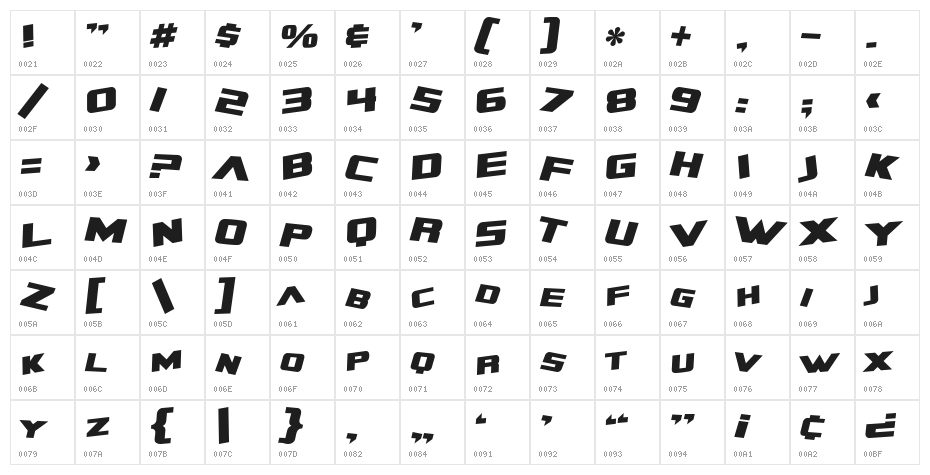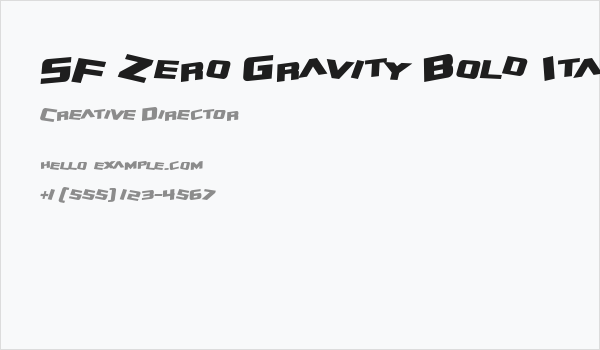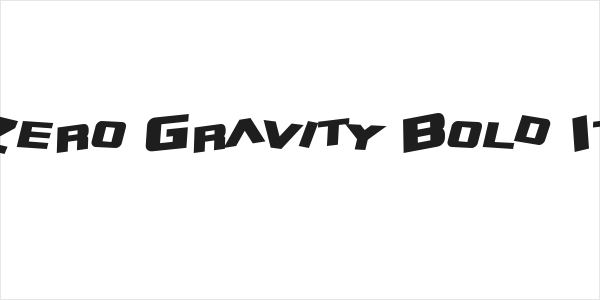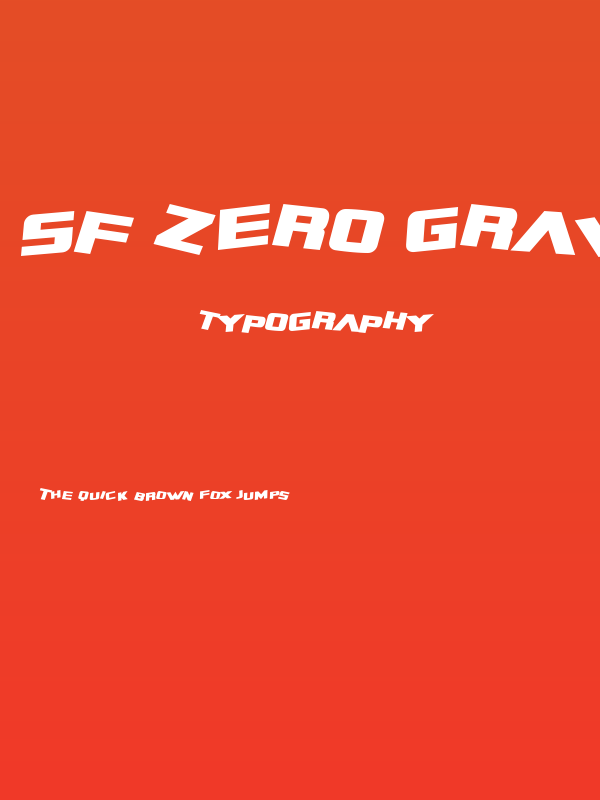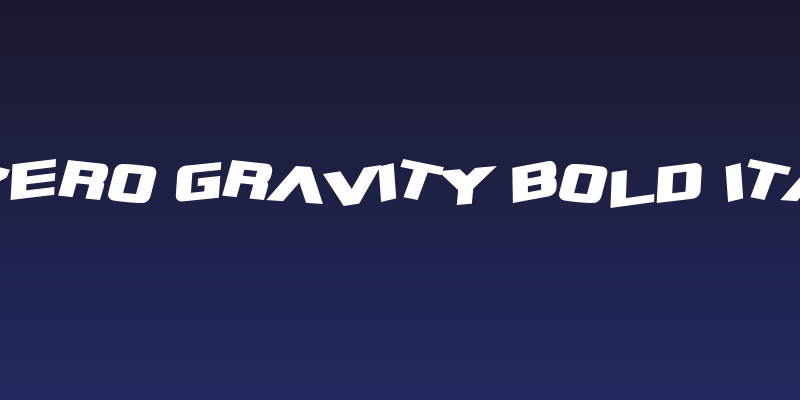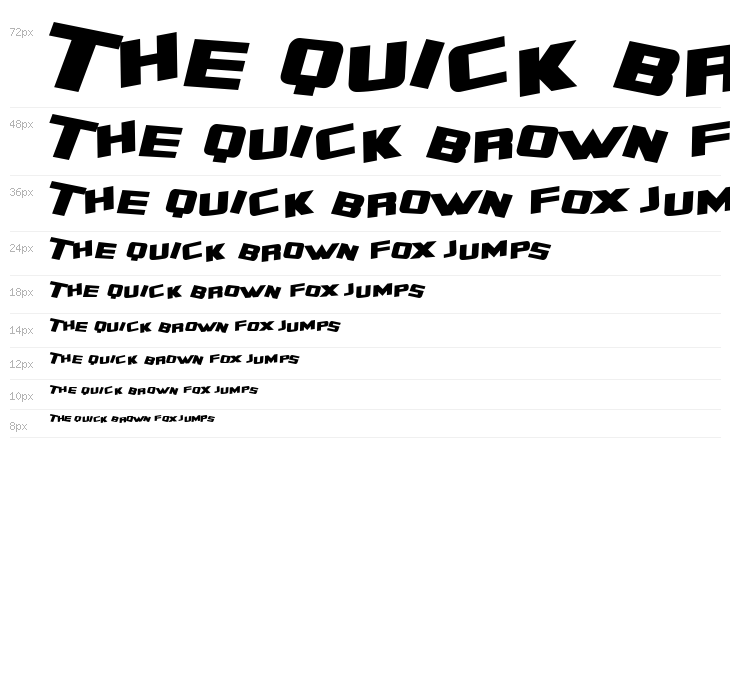
SF Zero Gravity Bold Italic Font
SF Zero Gravity Bold Italic Description
This dynamic and bold typeface features a futuristic and angular design, characterized by its sharp edges and slanted orientation. The uppercase letters are robust and convey a sense of movement and energy, making them ideal for attention-grabbing headlines. The lowercase letters maintain the same boldness, ensuring consistency across different text sizes. Numbers and special characters are equally bold and angular, providing a cohesive look throughout. The font's unique style is perfect for projects that require a modern and edgy aesthetic.
| Proposed Projects | Ideal for sci-fi themed designs, video game titles, posters, and branding that requires a modern and bold look. |